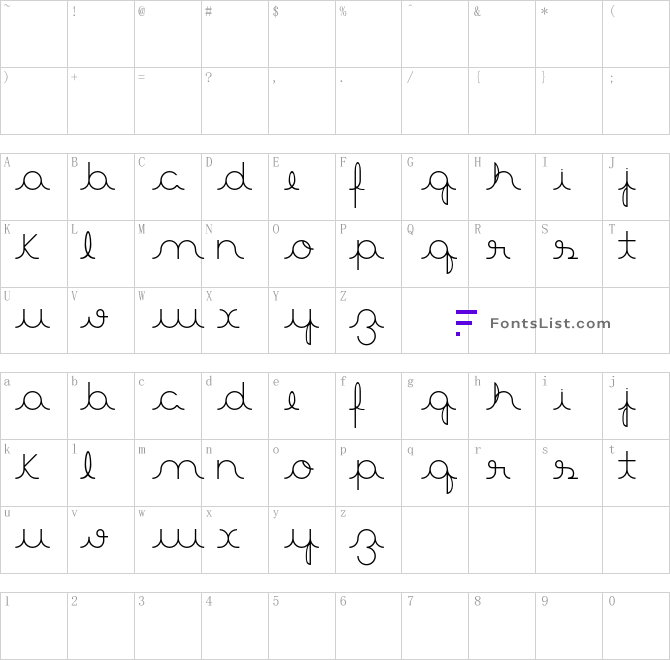
- Font Name:Aster 3
Aster3.otf is a very beautiful artistic font, Aster3.otf is widely used in the design and printing of various books and pictures,Aster3.otf has a strong visual impact,Aster3.otf is a commonly used font in newspapers, magazines and books, and is used in posters, e-commerce Poster design, store design, logo design, font design and other fields.Aster3.